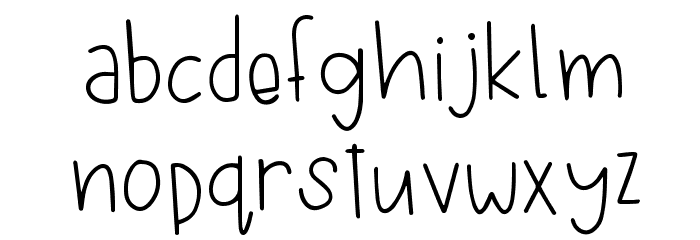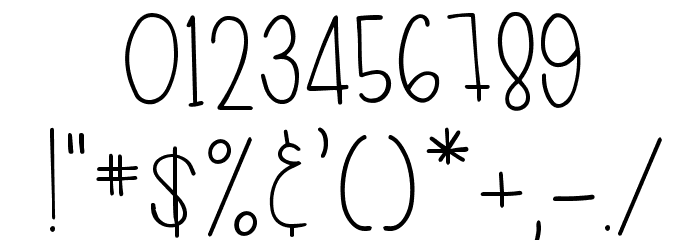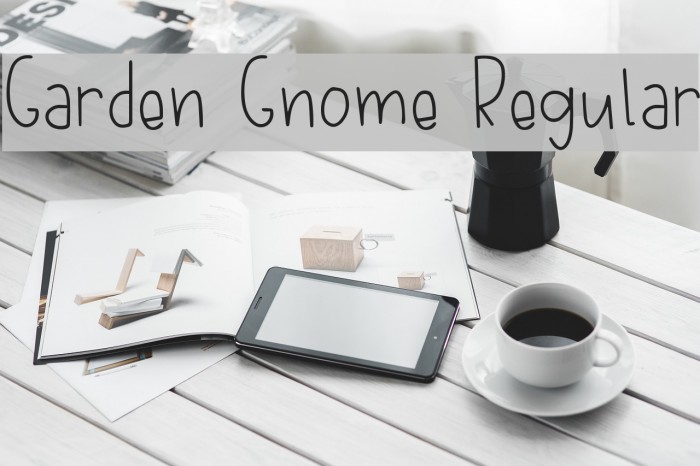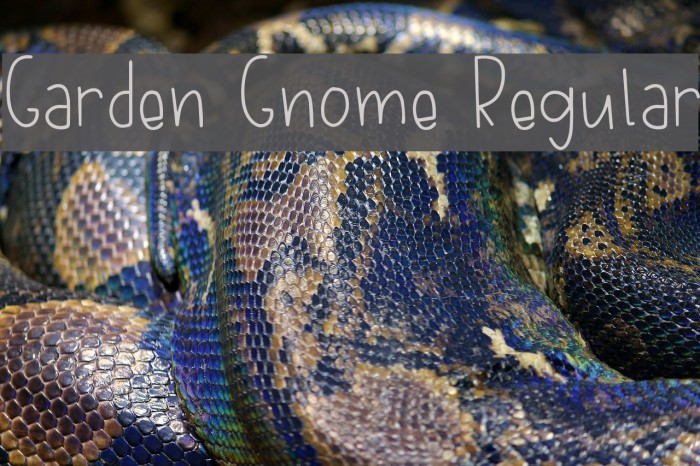
Garden Gnome Regular Font
This font features a playful and whimsical handwritten style, characterized by its tall, narrow letterforms and slightly irregular strokes. The uppercase letters are distinct with a charming unevenness, while the lowercase letters maintain a consistent flow, adding to the font's casual and friendly appearance. The numerals are rounded and match the overall playful aesthetic. Special characters are included, maintaining the same quirky style. This font is perfect for projects that require a touch of personality and informality.
A playful, handwritten font with tall, narrow letters and a whimsical style.
- Proposed Projects: Ideal for children's books, greeting cards, playful branding, and casual invitations.
- Overall Style: Playful
- Use Case: Headlines, Logos, Informal Text